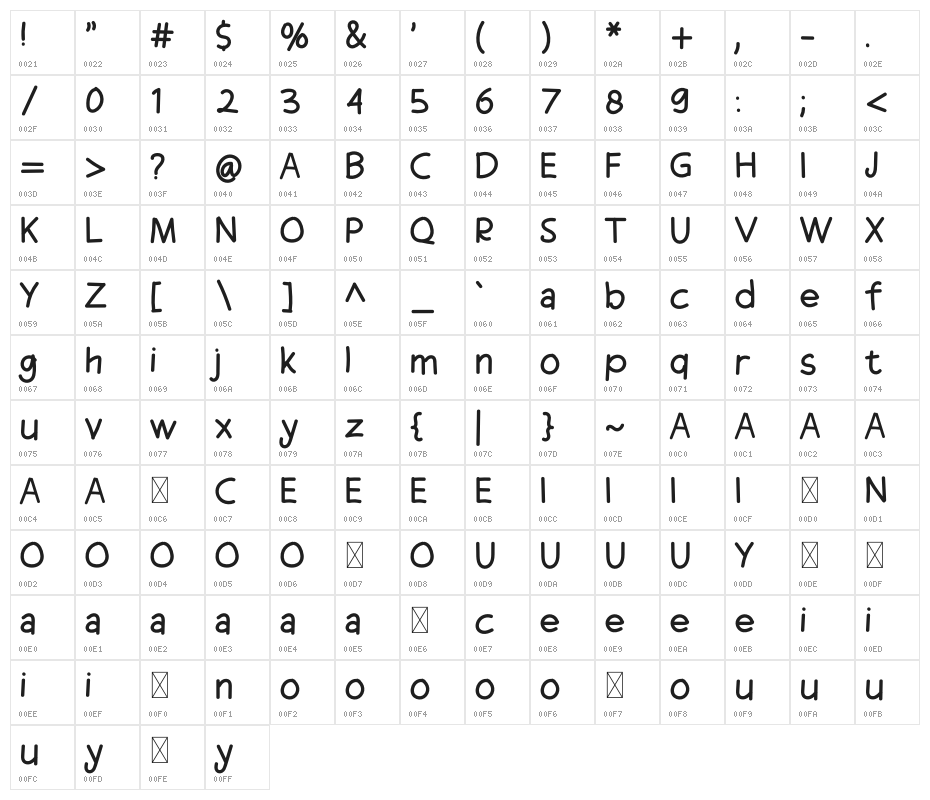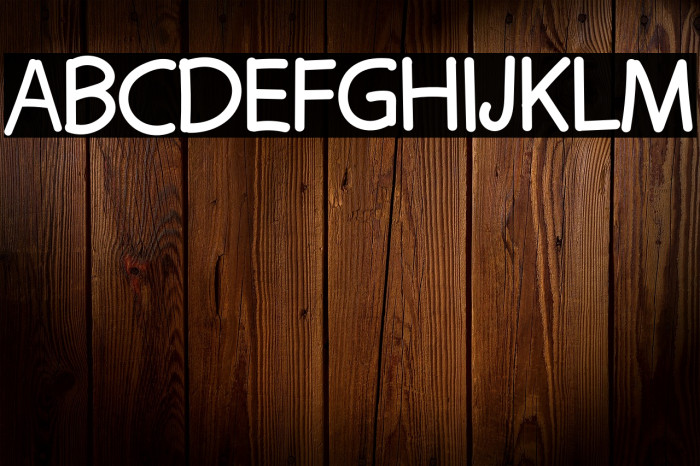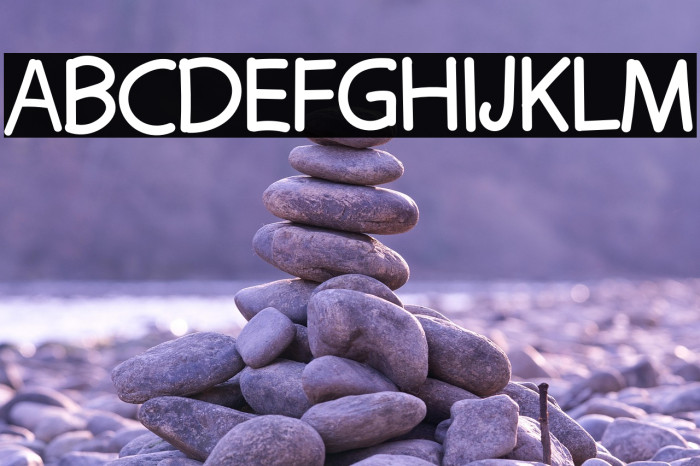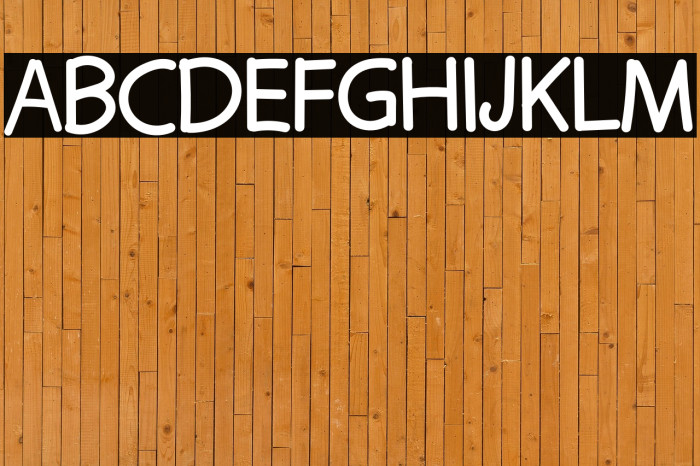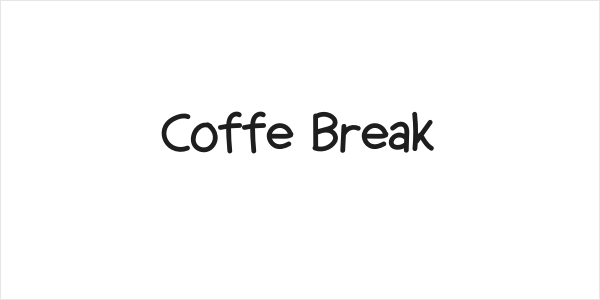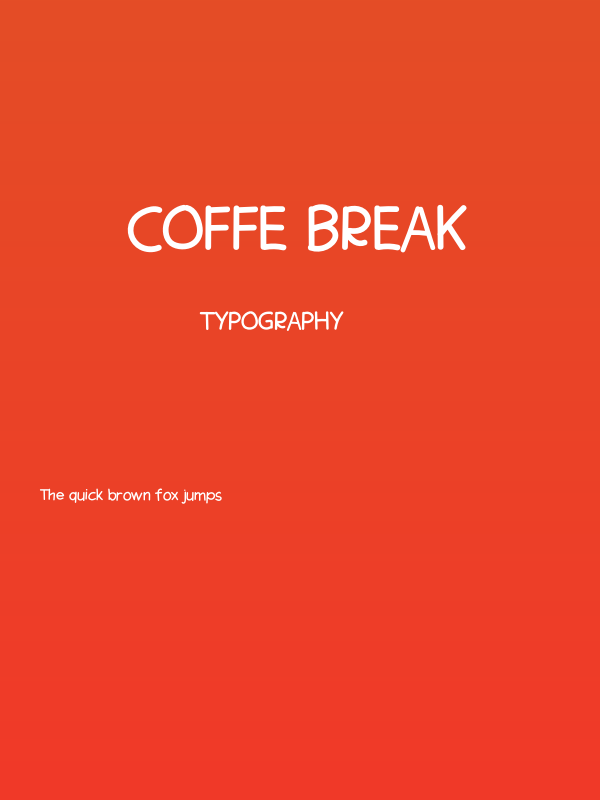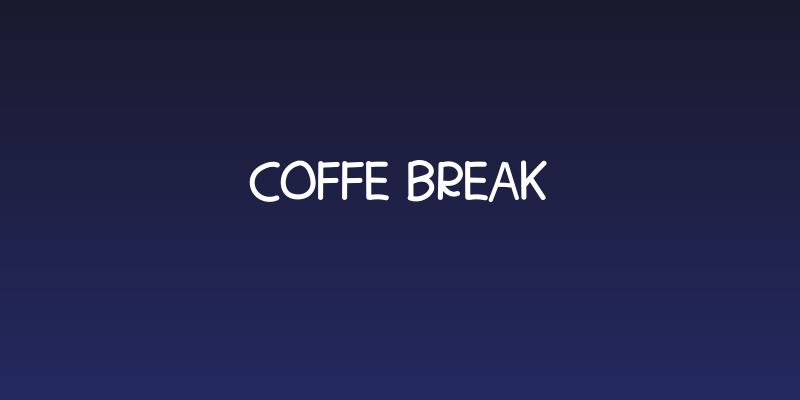
Coffe Break Font
Coffe Break Description
This font features a playful and casual handwritten style, characterized by its rounded and slightly irregular letterforms. The strokes are consistent in thickness, giving it a uniform appearance while maintaining a friendly and approachable vibe. The characters are well-spaced, ensuring readability even at smaller sizes. Its informal nature makes it suitable for projects that aim to convey warmth and friendliness. The font includes a full set of uppercase and lowercase letters, numbers, and a variety of special characters, making it versatile for different design needs.
| Overall Style | Casual |
| Use Case | Headlines, Informal text, Branding |
| Proposed Projects | Ideal for children's books, greeting cards, casual branding, and social media graphics. |